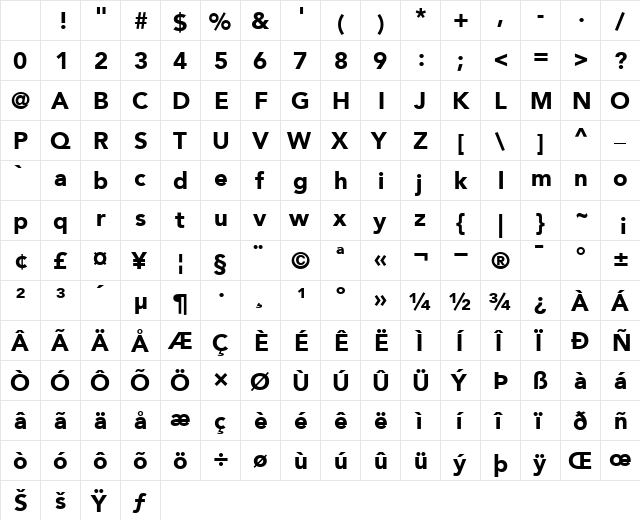
Complete Avenir95-Black Black glyph index. Displaying only characters natively supported by Avenir95-Black Black font.
Design Context for Avenir95-Black
Avenir95-Black is a composed and adaptable typeface that performs quietly and consistently across a wide range of design contexts.
Pro Tip: Use Avenir95-Black in both headline and body roles to test its range before committing to a single application.